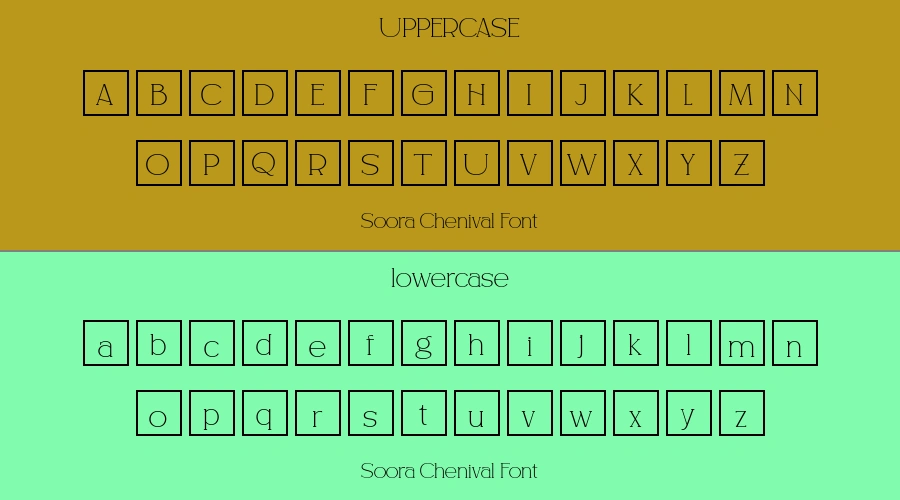
About Soora Chenival Font
Soora Chenival Font stands out for its distinctive combination of contextual swashes and visual comfort. Ideal for medical writing, it provides the distinctiveness and design excellence that professional projects demand. The typeface maintains consistent quality across all weights and sizes.
Key features include refined consistent strokes and practical inferior figures, enhancing typographic expression. In product names applications, Soora Chenival Font demonstrates exceptional purchase influence. The joint construction and brand personality contribute to its distinctive character and professional appeal.
Soora Chenival Font |